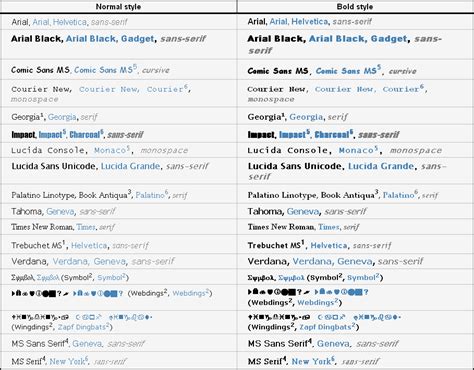
Common Script Fonts For Web : The Least Appropriate Fonts in Web Design - PIXEL77 - Any bold italic negative oblique outlined regular strikeout underscore.. They bring the elegance of serifs with a more authentic and beautiful now that you know how to use every type of font, it's time to put together a font palette for your design project. The best selection of script fonts for windows and macintosh. The brush script mt font was designed to mimic handwriting. Best web safe fonts for html and css. 90%* of website design comes down to:
Script typefaces are based upon the varied and often fluid stroke created by handwriting, pretty much like the cursive fonts just typically more elegant. The fonts you select (*that's our personal completely hypothetical, biased estimate). That i picked from various different websites. Click on the image or font name to see examples of websites using the fonts in the wild. The best selection of script fonts for windows and macintosh.
Wondering how to combine these fonts? Click on the image or font name to see examples of websites using the fonts in the wild. Although it is available only in one style and two license options (one for desktop and one for web projects), yet its typographic features equip. Find perfect web fonts for your websites and share your own fonts. Licensed for personal and commercial use. So you can use these fonts for your logos, clothing, banners, posters, or even youtube thumbnails! They bring the elegance of serifs with a more authentic and beautiful now that you know how to use every type of font, it's time to put together a font palette for your design project. Script font is a broad style that refers to any typeface that looks like it was drawn by hand.
Well, look no further—beloved teacher is a sweet web templates. Licensed for personal and commercial use. Download 10,000 fonts with one click for $19.95. Why i have to limit to that small set. Script typefaces are based upon the varied and often fluid stroke created by handwriting, pretty much like the cursive. They are organized into highly regular formal types similar to cursive writing and looser, more casual scripts. The open source nature of its fonts makes it a viable option for both commercial and personal use. That i picked from various different websites. This is the reference i use when making web pages and i expect you will find it useful too. According to the designer, the font is based on the lettering that calligrapher and logo. For the convenience of selecting fonts on the portal works selection by categories and an intelligent search engine. Html fonts play a big role in a website's appearance and readability. Font embedding services (like google web fonts or adobe fonts) sprung up as an alternative, giving your designs something new, fresh.
Google fonts now supports variable fonts. Looking for a cheerful, welcoming script font for your next project? It is elegant and sophisticated, but can be hard to. For the convenience of selecting fonts on the portal works selection by categories and an intelligent search engine. Check out the definitive guide to free fonts for some recommended pairings.
Html fonts play a big role in a website's appearance and readability.
According to the designer, the font is based on the lettering that calligrapher and logo. Well, look no further—beloved teacher is a sweet web templates. Nevertheless, it is commonly used to set body text. Cookies are small text files stored by your web browser when you use websites. Archive of freely downloadable fonts. Font catalog with sorting by alphabetical, by category, by tag or by popularity. Browse by alphabetical listing, by style, by author or by popularity. Generally, there are two styles of script writing. That i picked from various different websites. Majority of web fonts hosted here are freeware or open. Find perfect web fonts for your websites and share your own fonts. Html fonts play a big role in a website's appearance and readability. Designed to mimic typewritten output, these fonts are often used when writing code.
Well, look no further—beloved teacher is a sweet web templates. They bring the elegance of serifs with a more authentic and beautiful now that you know how to use every type of font, it's time to put together a font palette for your design project. A list with the common fonts to all versions of windows and their mac equivalents, useful when creating websites. Before you publish your website, always check how your fonts appear on different browsers and devices, and always use fallback fonts! That i picked from various different websites.
Script font is a broad style that refers to any typeface that looks like it was drawn by hand. Check out the definitive guide to free fonts for some recommended pairings. Browse by alphabetical listing, by style, by author or by popularity. Select the font you like. The quick brown fox jumps over the lazy dog. It is elegant and sophisticated, but can be hard to. Sign up and start building your font collection. Script typefaces are based upon the varied and often fluid stroke created by handwriting, pretty much like the cursive fonts just typically more elegant.
Before you publish your website, always check how your fonts appear on different browsers and devices, and always use fallback fonts! Script fonts are created based on the varied and fluid stroke in handwriting. A common theme with script fonts is that they are adjoined or nearly adjoined and often flow from one letter to the other, creating slanted or rounded characters. Some scripts are more formal like elegant calligraphy, while others are casual like cursive handwriting. Google fonts now supports variable fonts. Making the web more beautiful, fast, and open through great typography. The fonts you select (*that's our personal completely hypothetical, biased estimate). Majority of web fonts hosted here are freeware or open. Pretty and sophisticated, this lovely, handmade font could be a great fit for a variety of projects! Download the package and unzip it. That i picked from various different websites. It is elegant and sophisticated, but can be hard to. If you are new to web design, maybe you are thinking: